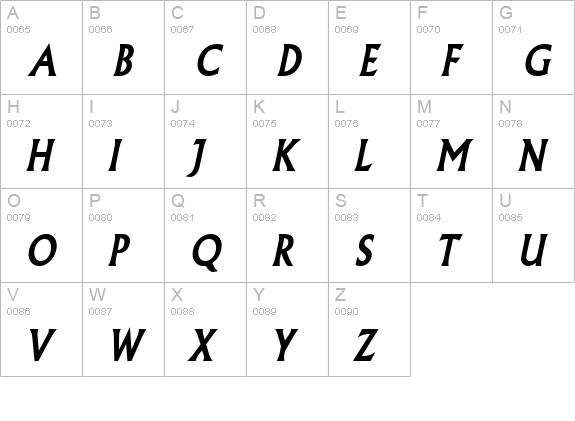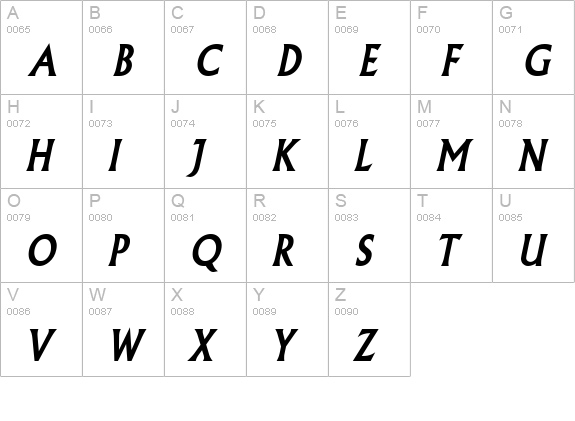
Flair Condensed BoldItalic Font Details
Flair Condensed BoldItalic is a distinctive, condensed-width variant in the Flair typeface family \xE2\x80\x94 well suited to design and typography projects.
Flair Condensed BoldItalic font is a stylish and eye-catching typeface that exudes elegance and sophistication. Its striking bold and italic design makes it perfect for adding a touch of flair to any project. Whether you're creating posters, invitations, or branding materials, this font is sure to make a statement. And the best part? Flair Condensed BoldItalic font is available for free download at FontsMarket.com. With its sleek and modern look, this font is a versatile choice for designers looking to elevate their designs and stand out from the crowd. Don't miss out on the opportunity to add this stunning font to your collection today!